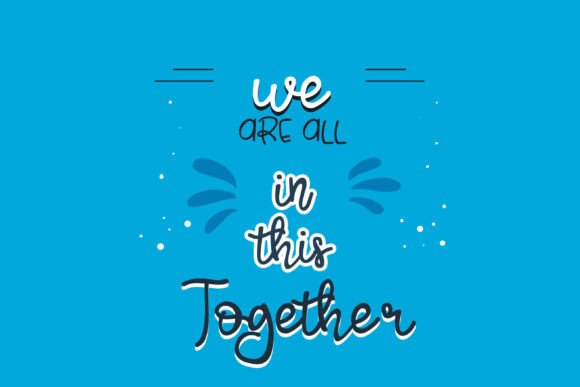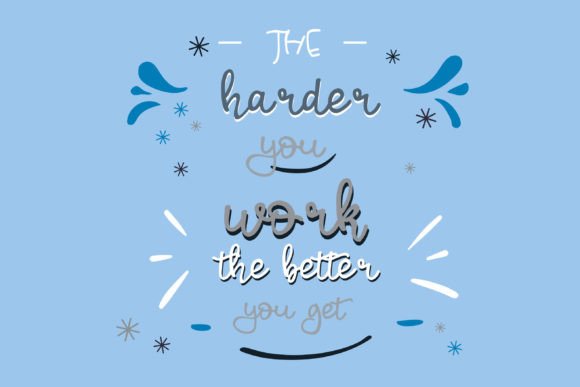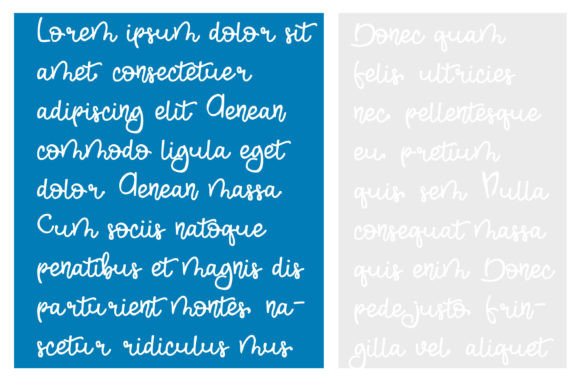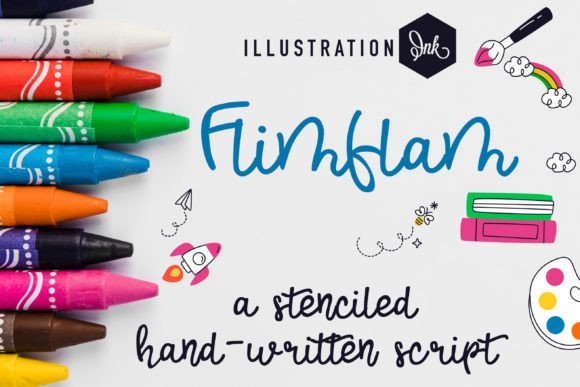
Introduction to Flimflam Font
This hand-written script has a very bouncy baseline and whimsy feel.
Offers gorgeous typographic perfect for many different projects such as logos & branding, invitations, stationery, wedding designs, social media posts, advertisements, product packaging, product designs, labels, photography, watermarks, special events, or anything that needs handwriting taste .